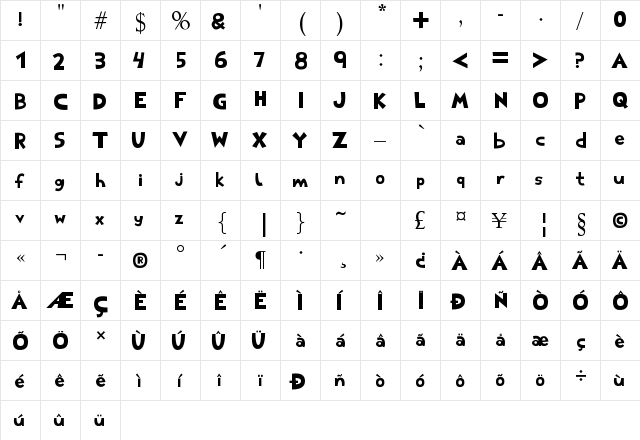
MDH Titling Regular
Design Context for MDH Titling Typeface
MDH Titling is a composed and adaptable typeface that performs quietly and consistently across a wide range of design contexts.
Pro Tip: Pair MDH Titling with a font of contrasting weight or personality to build a more expressive typographic hierarchy.